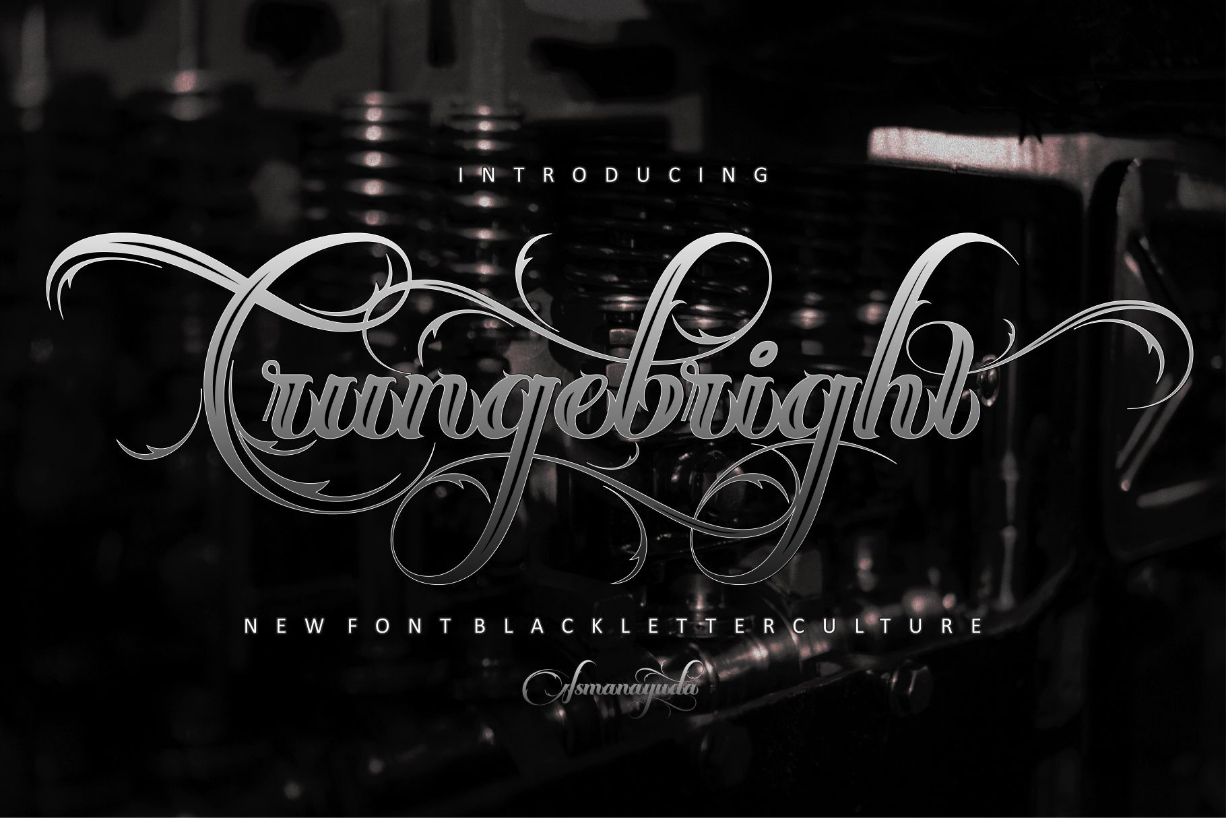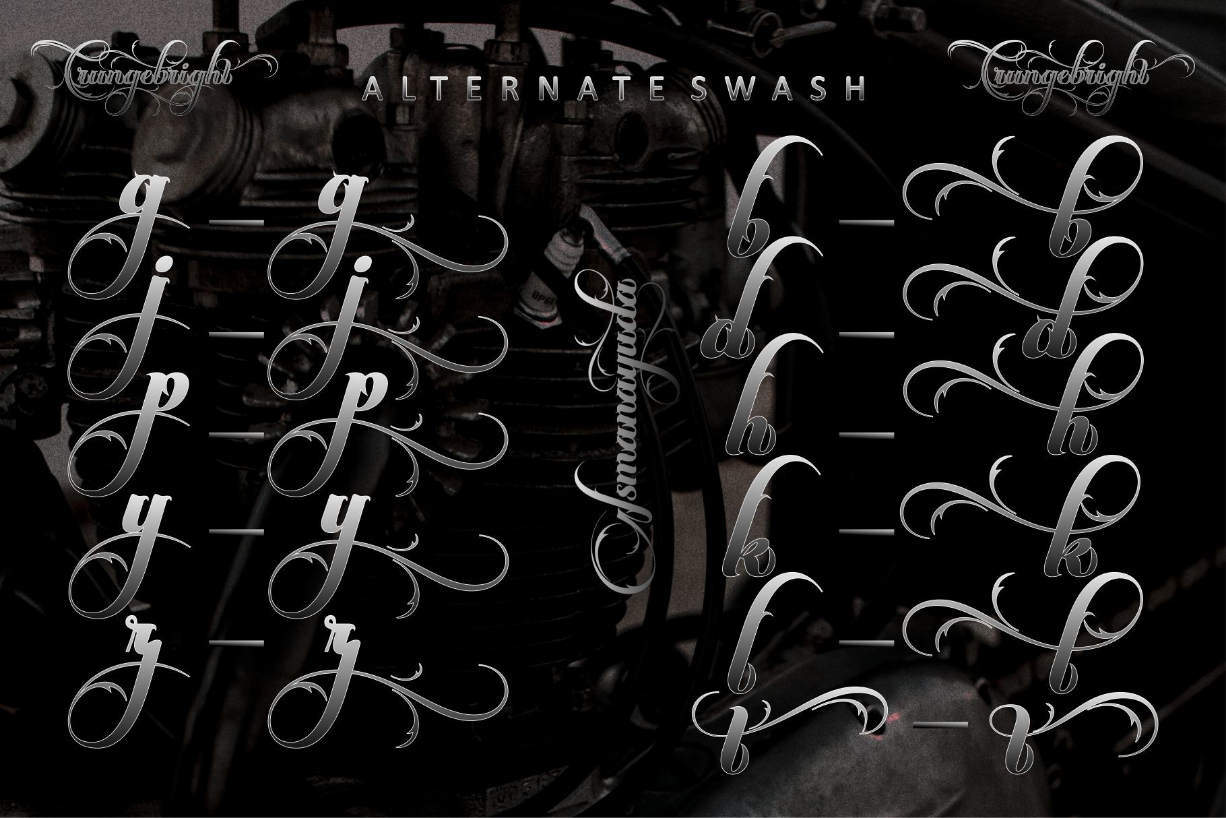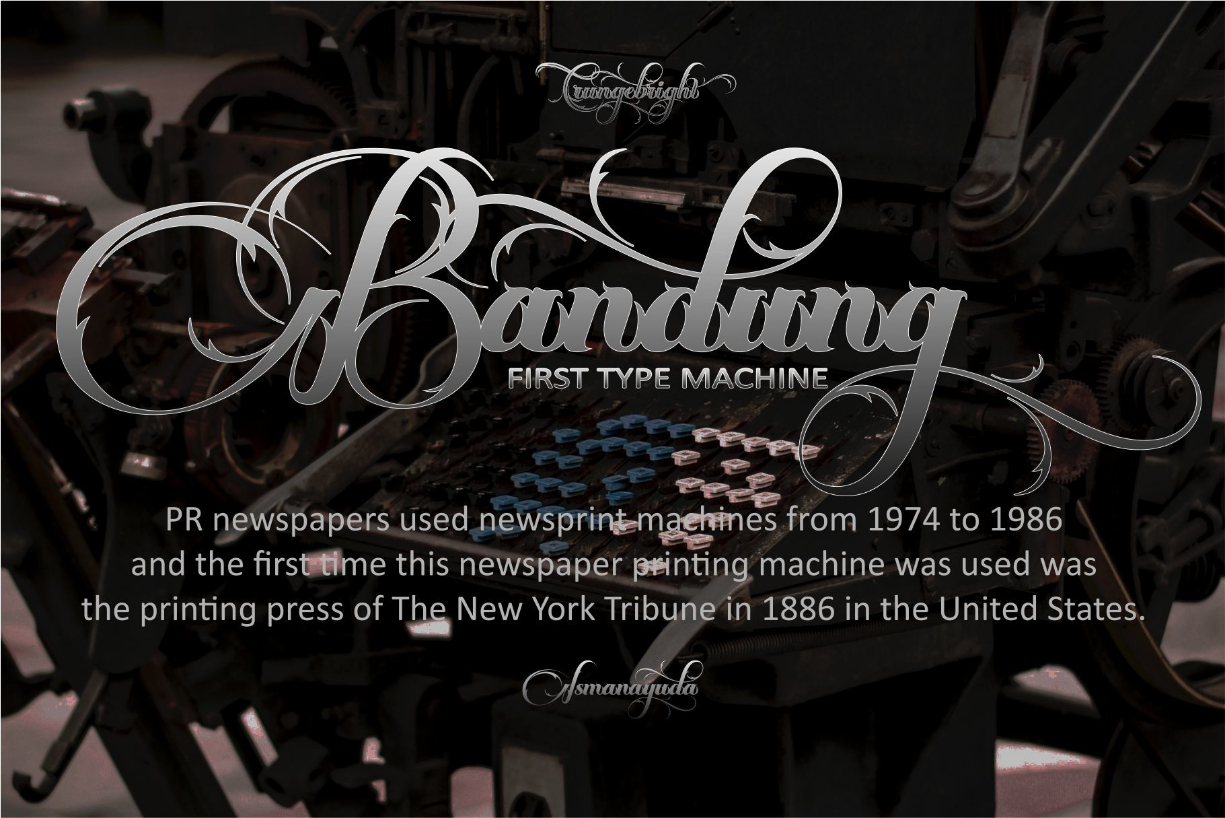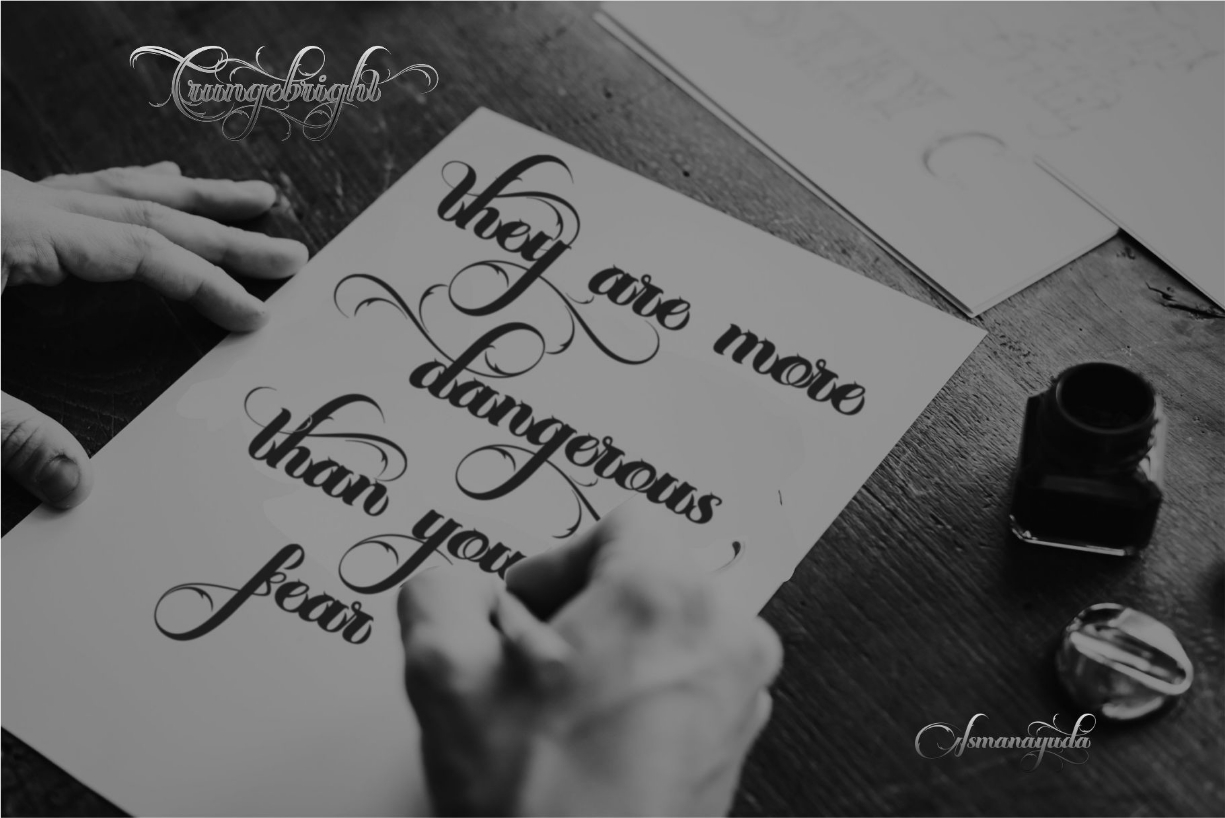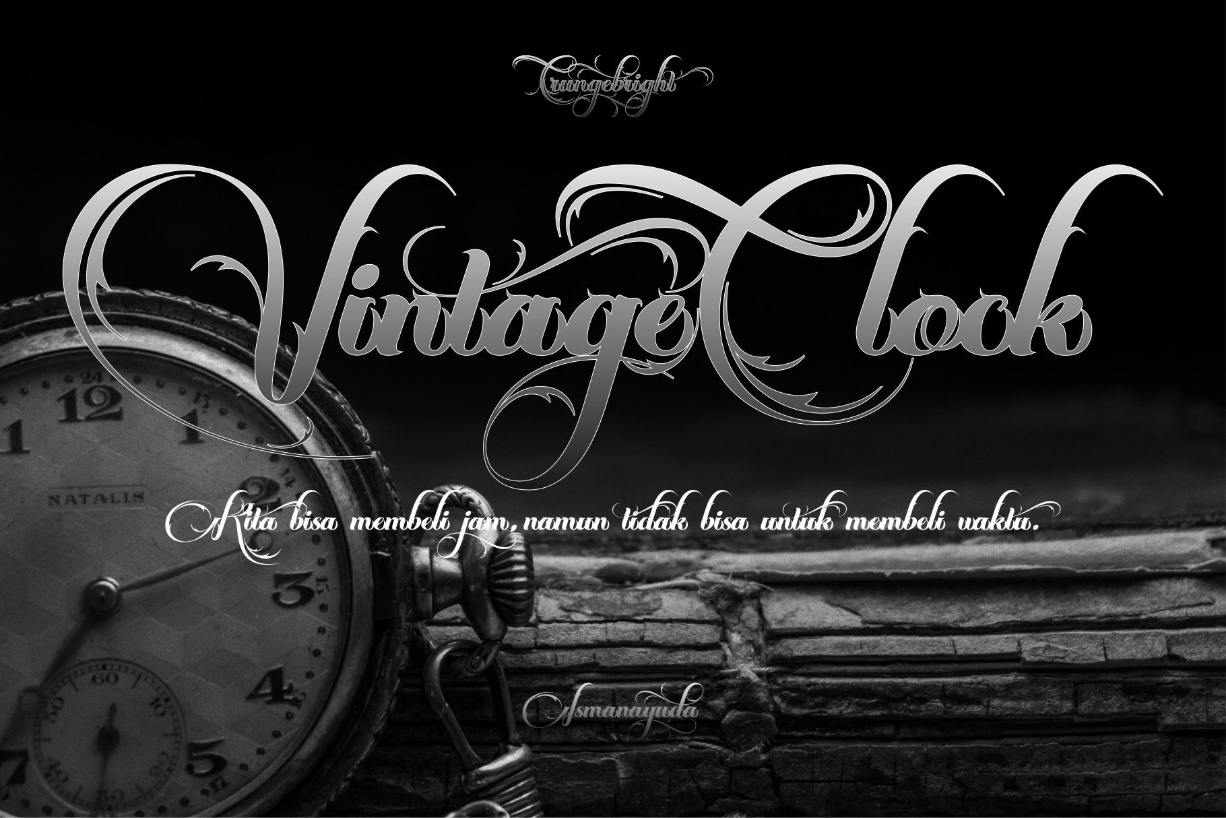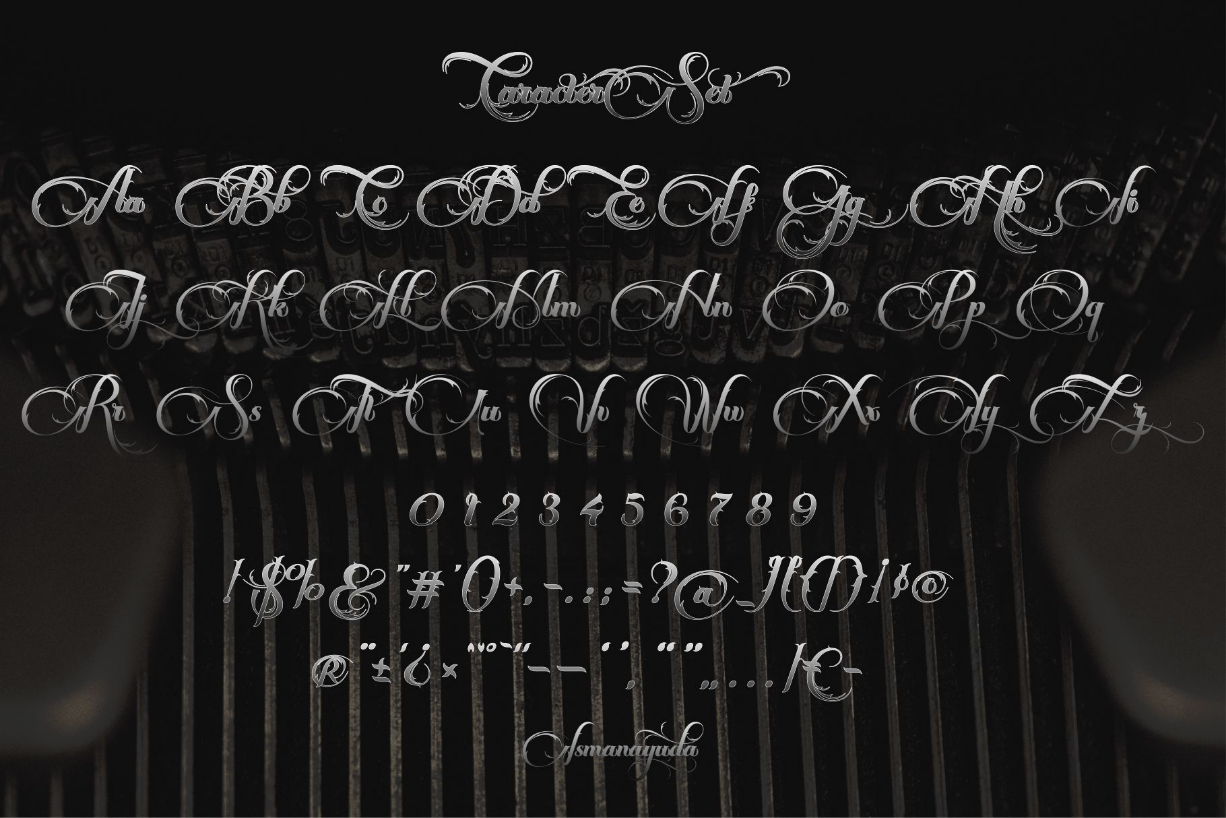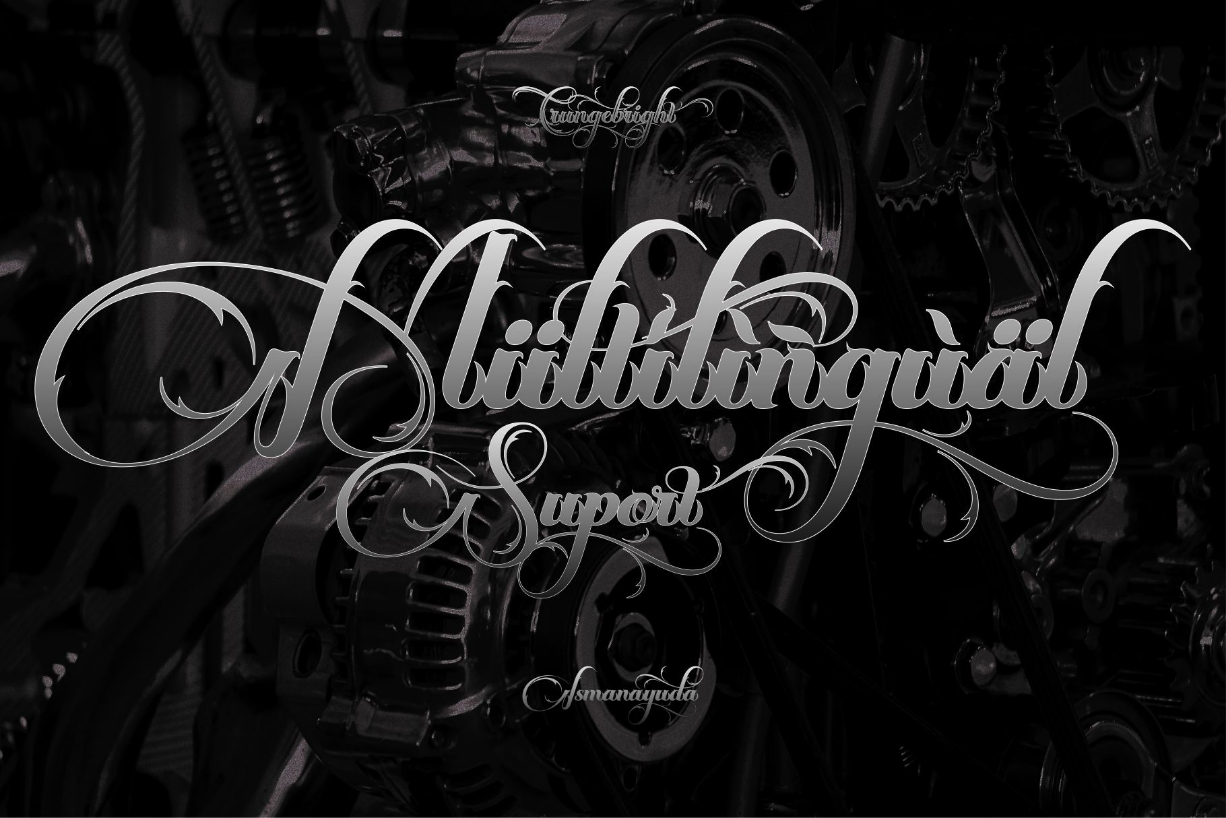
About Crungebright Font
Crungbringt is a script font from us that carries colors from the blackletter flow so that this font can be used for various needs.
Whether itβs for tattoos, cloth, band logo designs, or industry.